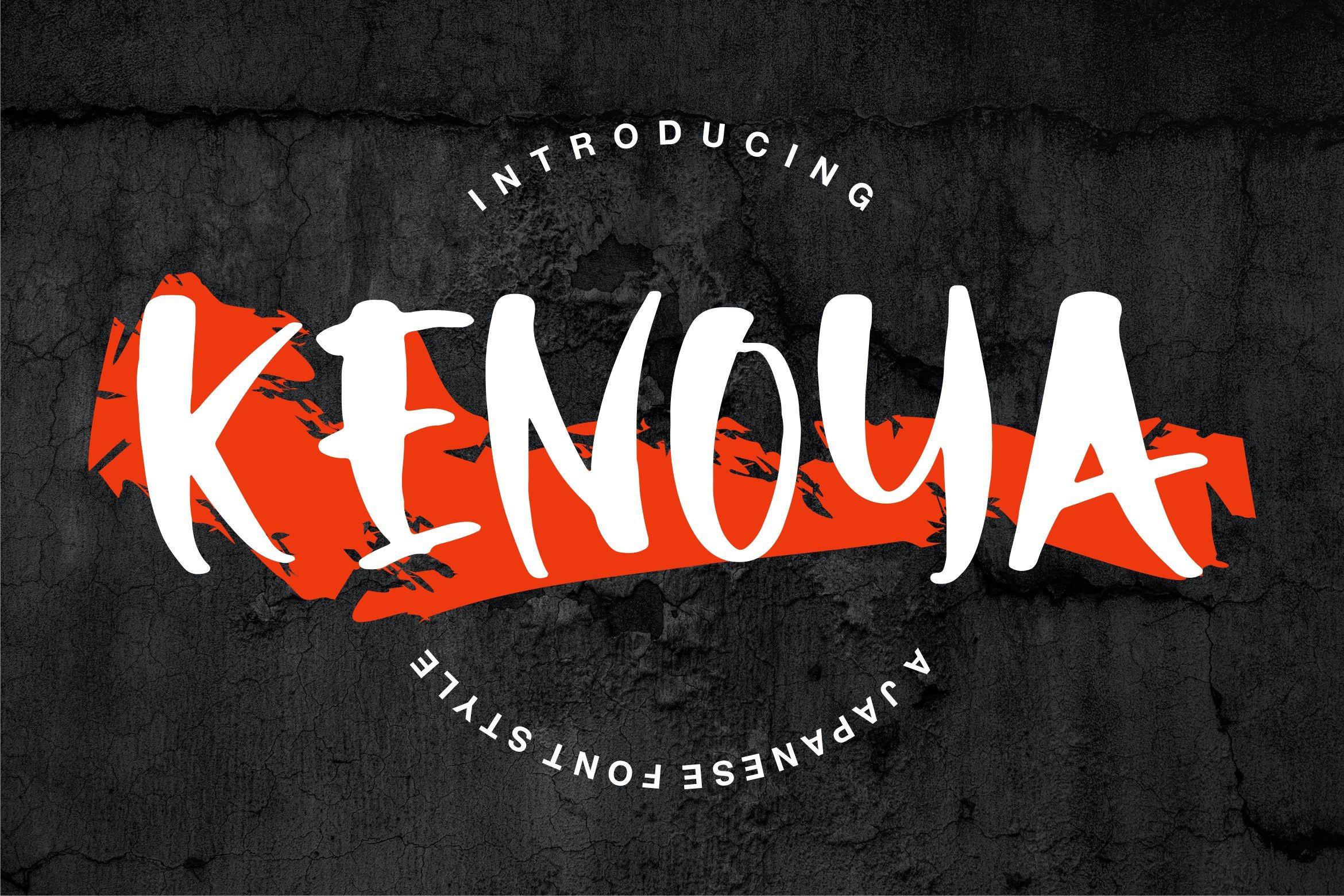
Kenoya Font Description
Kenoya is a beautiful display font inspired by Japanese calligraphy. It is perfect for greeting and thank you cards, branding materials, business cards, quotes, posters, and more! Add it to your designs, and it will turn any creative idea into a true piece of art!